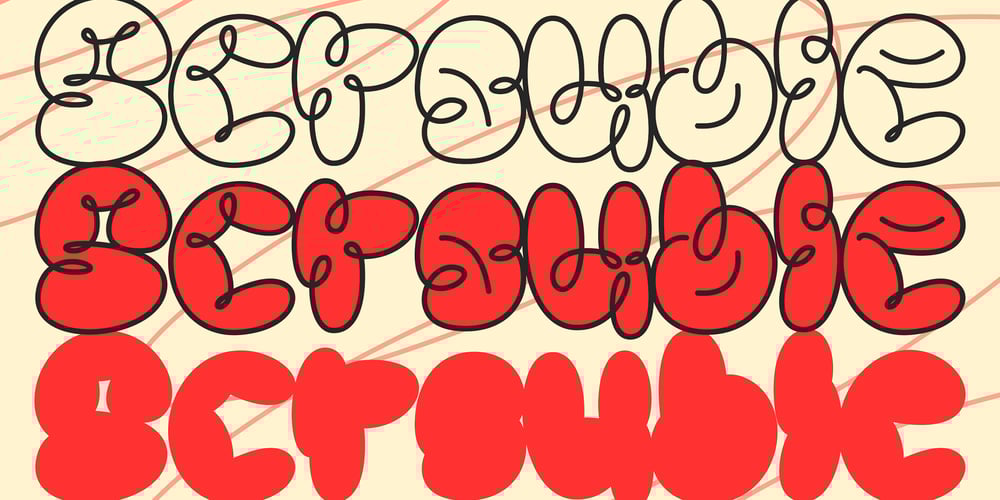
Scrouble Outline Font Family was designed by Jada Akbal and published by Jadatype. Scrouble Outline contains 2 styles and family package options. Scrouble is a display font that comes with a playful scribble style. suitable for tshirt, branding, social media, and so on. contains standard English letters, numbers, punctuation, and several accents that support multilingualism.